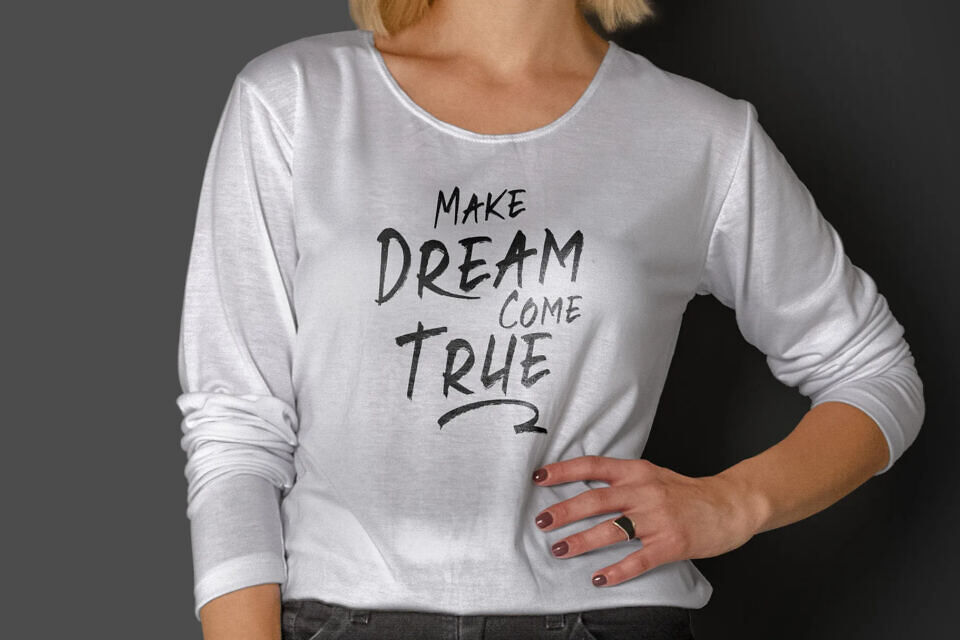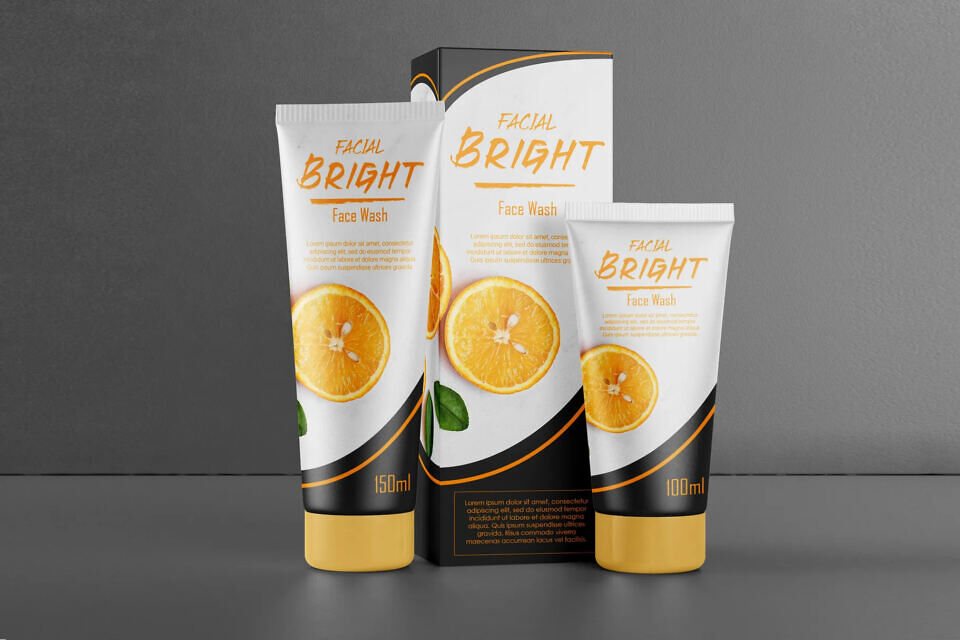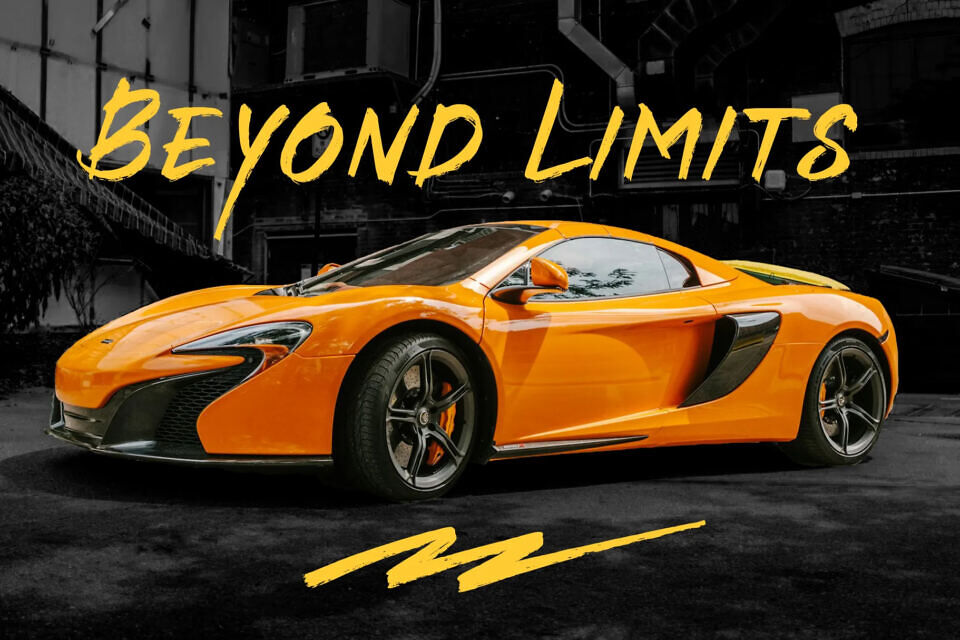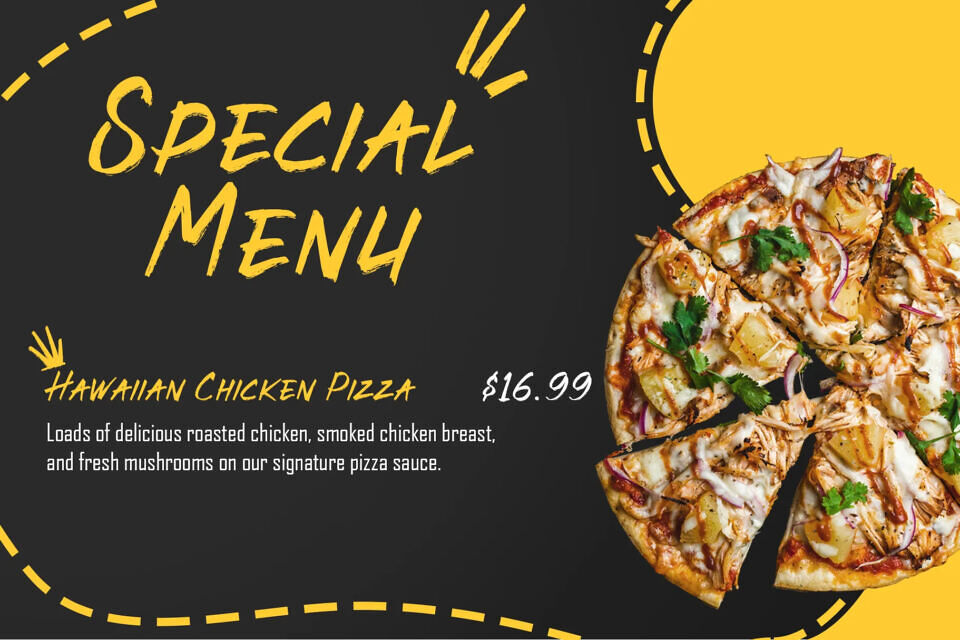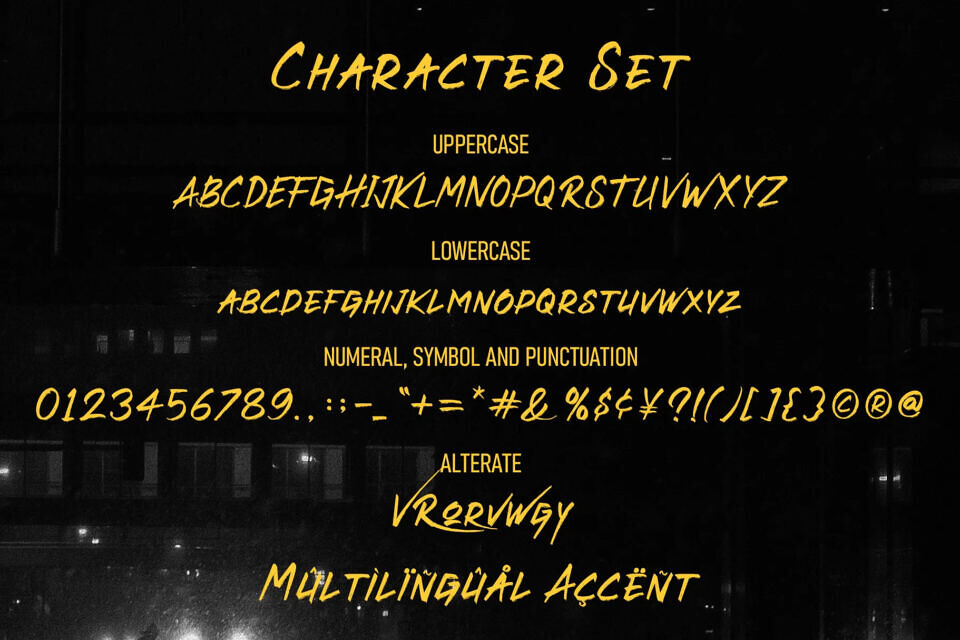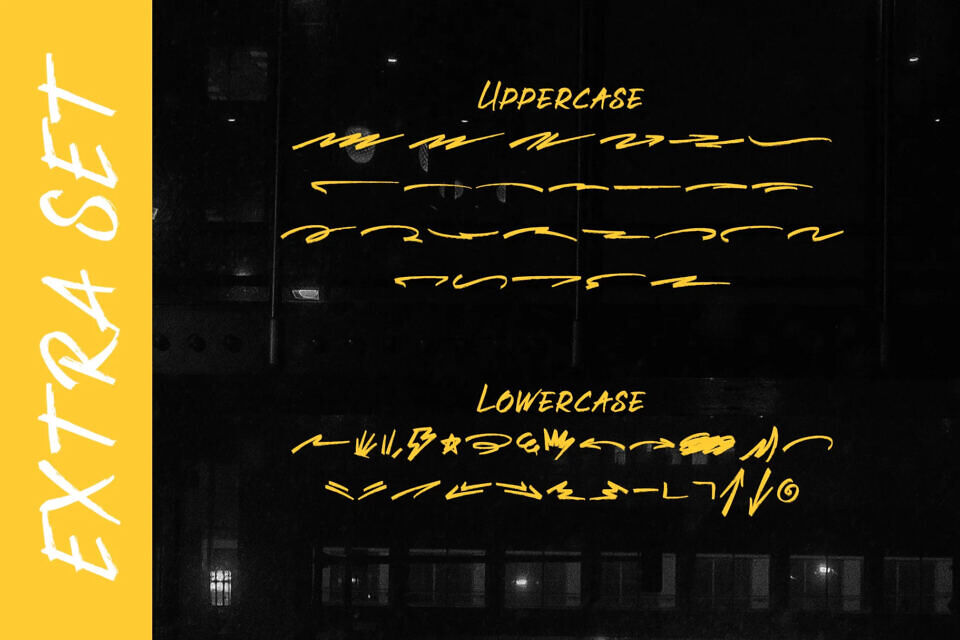
Creed Blaze Font
Creed Blaze is a bold and energetic brush font designed to make a powerful statement. With its raw, hand-drawn strokes, it brings a dynamic, edgy, and urban feel, perfect for headlines, posters, branding, and social media graphics.
This font excels in conveying intensity and passion, making it ideal for sports, adventure, and creative designs. Pair it with minimalist elements to highlight its boldness, or let it stand alone as a dominant focal point.